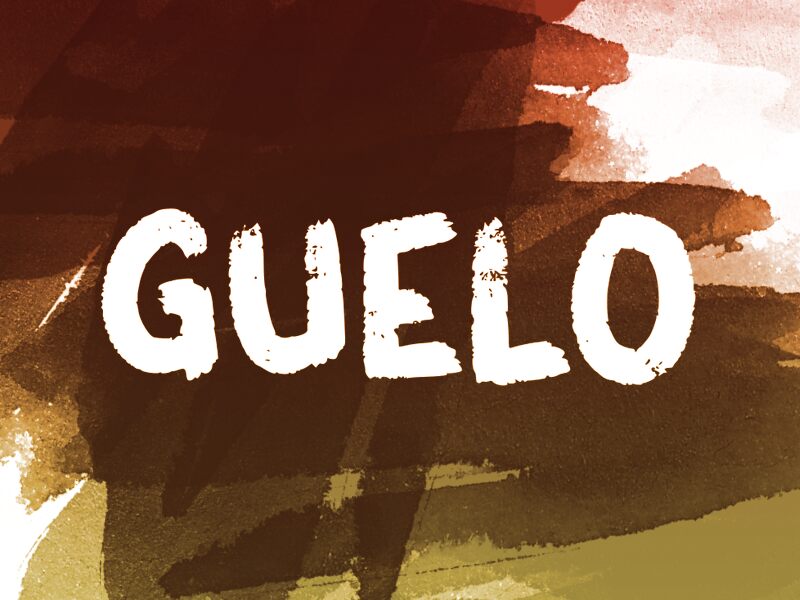
GUELO
Guelo is a bold, brush-inspired font that exudes a captivating, organic energy. Crafted by designer wep, this typeface boasts a striking, dynamic appearance with its thick, uneven strokes and a touch of raw, handcrafted charm. The font's rugged, expressive quality lends itself to projects seeking a bold, impactful visual presence.
Guelo's versatility makes it a compelling choice for a variety of design applications, from attention-grabbing headlines and logo designs to dynamic typographic compositions. Its distinctive character and robust aesthetic could particularly shine in branding, editorial, and packaging design contexts, adding a bold, memorable accent to visual narratives.